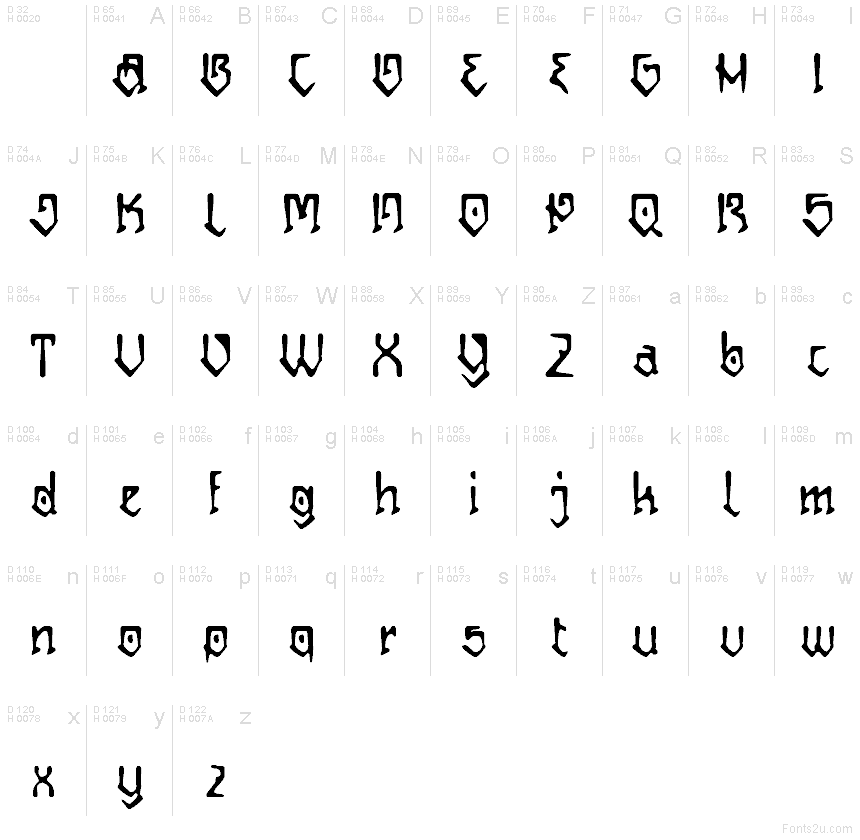
CSRohanDrawn-Regular Demo
CS Rohan Drawn font by Craft Supply Co. is a free hand-drawn gothic font. Part of the CS Rohan family, it stands out with rune-like angles, faceted curves, and inky, rough-hewn edges that feel carved rather than typeset. The staggered rhythm and diamondish counters create drama without losing readability, giving headlines a gritty, story-laden presence.
Using CS Rohan Drawn brings immediacy to fantasy book covers, RPG titles, game logos, metal or dark-folk posters, craft beer labels, and medieval festival branding. Its chunky strokes love big sizes and a touch of extra tracking. Pair this free font with a clean sans—or a smoother cut from the CS Rohan family—for body text that lets the hand-drawn texture take center stage.